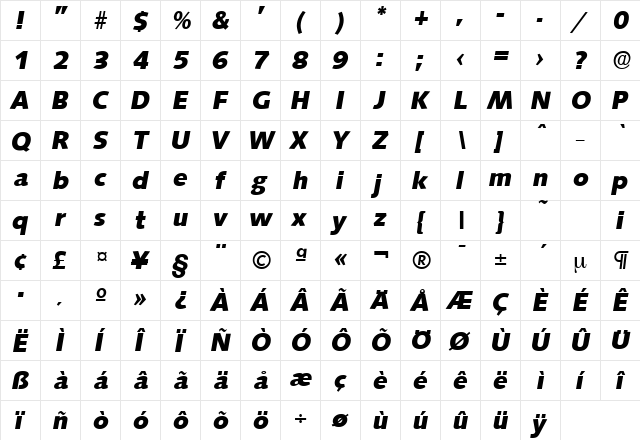
Saxony-Serial-ExtraBold RegularItalic Font Preview
Design Context for Saxony-Serial-ExtraBold Typeface
Saxony-Serial-ExtraBold takes a measured approach to typography — its balanced proportions and neutral character make it a reliable workhorse for both digital and print work. Its italic angle brings a sense of urgency and motion to the letterforms. The heavy weight commands attention and anchors typographic hierarchies.
Pro Tip: Try Saxony-Serial-ExtraBold for annotation and caption copy alongside an upright companion — the contrast in angle creates a dynamic but ordered typographic system.